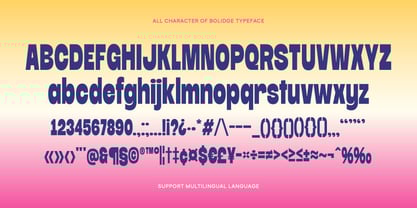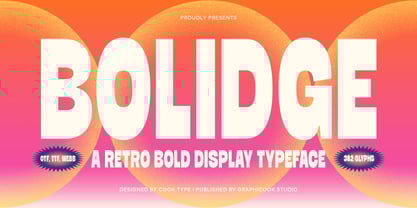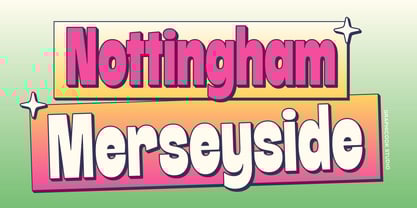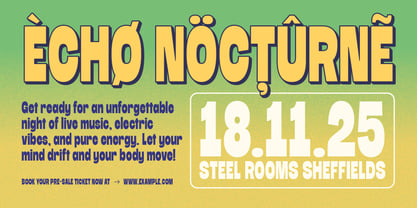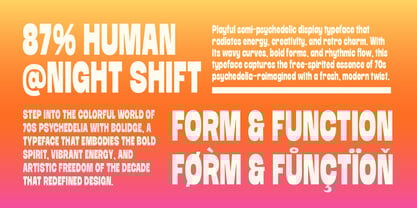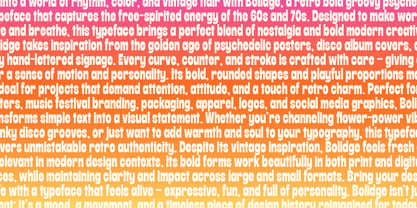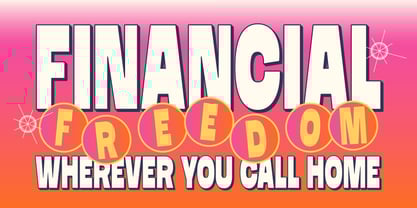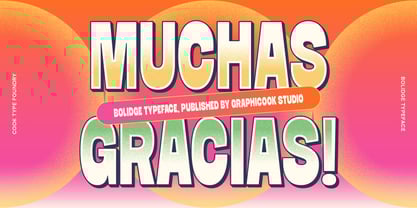
Cook Bolidge
by Graphicook Studio
The Cook Bolidge Font Family was designed by Gumilar Febriansyah and published by Graphicook Studio. Cook Bolidge contains 1 styles. More about this family
Bolidge is a bold display font infused with vintage charm, creating a striking and nostalgic look. Ideal for headlines, billboard banners, packaging, or any design that demands bold visual impact. It is perfect for headlines, logotypes, magazines, packaging, quotes, movies, games, cover albums, book covers, and flyers, it's a perfect solution for creating eye-catching designs that stand out in any context.
Designers: Gumilar Febriansyah
Foundry: Graphicook Studio